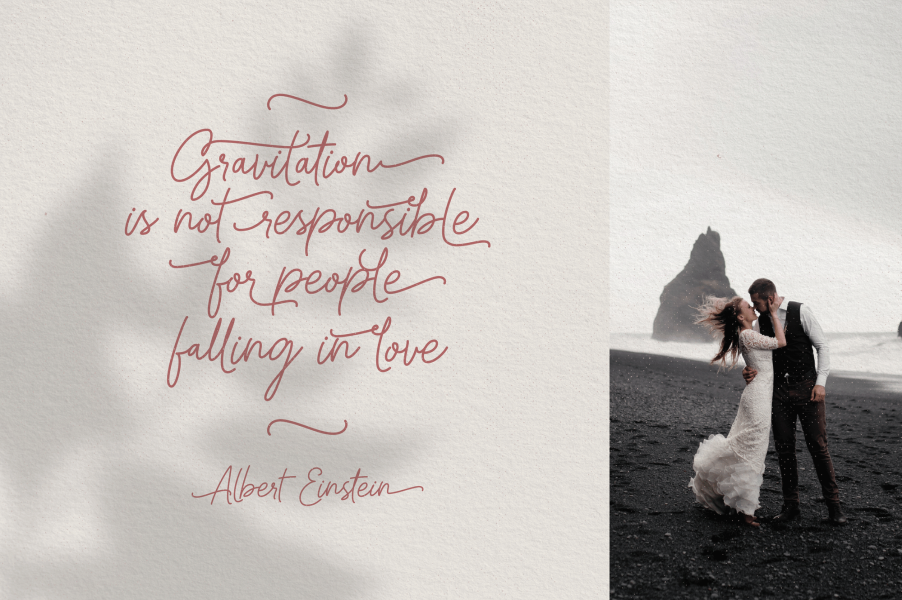
Introducing a new font called Haslley Beautiful Monoline Stylish Font. Haslley Beautiful Monoline Stylish Font inspired by the beautiful curves of the world, this font has 686 types of glyphs that are able to give their own creations to designers because they have many variations of different types of letters.
Ligatures